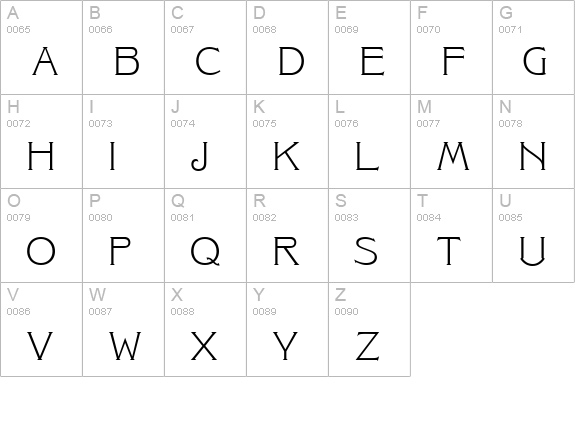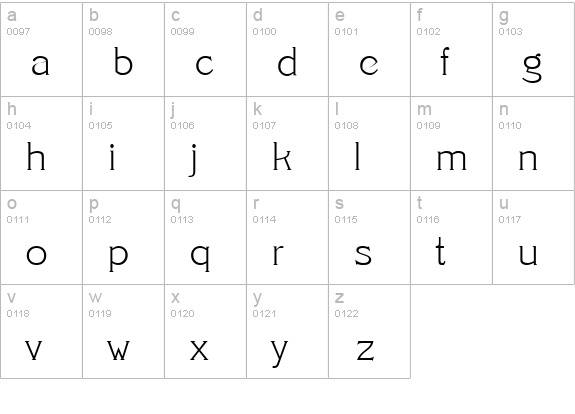
Grafiko Font Details
Introducing Grafiko font, a modern and sleek typeface designed to bring a touch of sophistication to your projects. With its clean lines and elegant curves, Grafiko is perfect for creating eye-catching designs that command attention. This versatile font is suitable for a wide range of applications, from branding to editorial design. What sets Grafiko apart is not just its aesthetic appeal, but also its accessibility. This font is freely available to download at FontsMarket.com, making it easy for designers and creatives to incorporate it into their work without any restrictions. Whether you're working on a logo, website, or print materials, Grafiko is sure to elevate your design and leave a lasting impression. Download Grafiko font today and unleash your creativity with this stylish and contemporary typeface that is both visually striking and effortlessly chic.